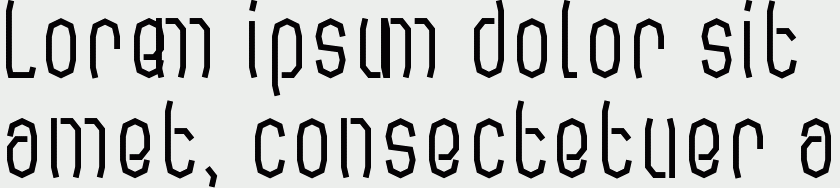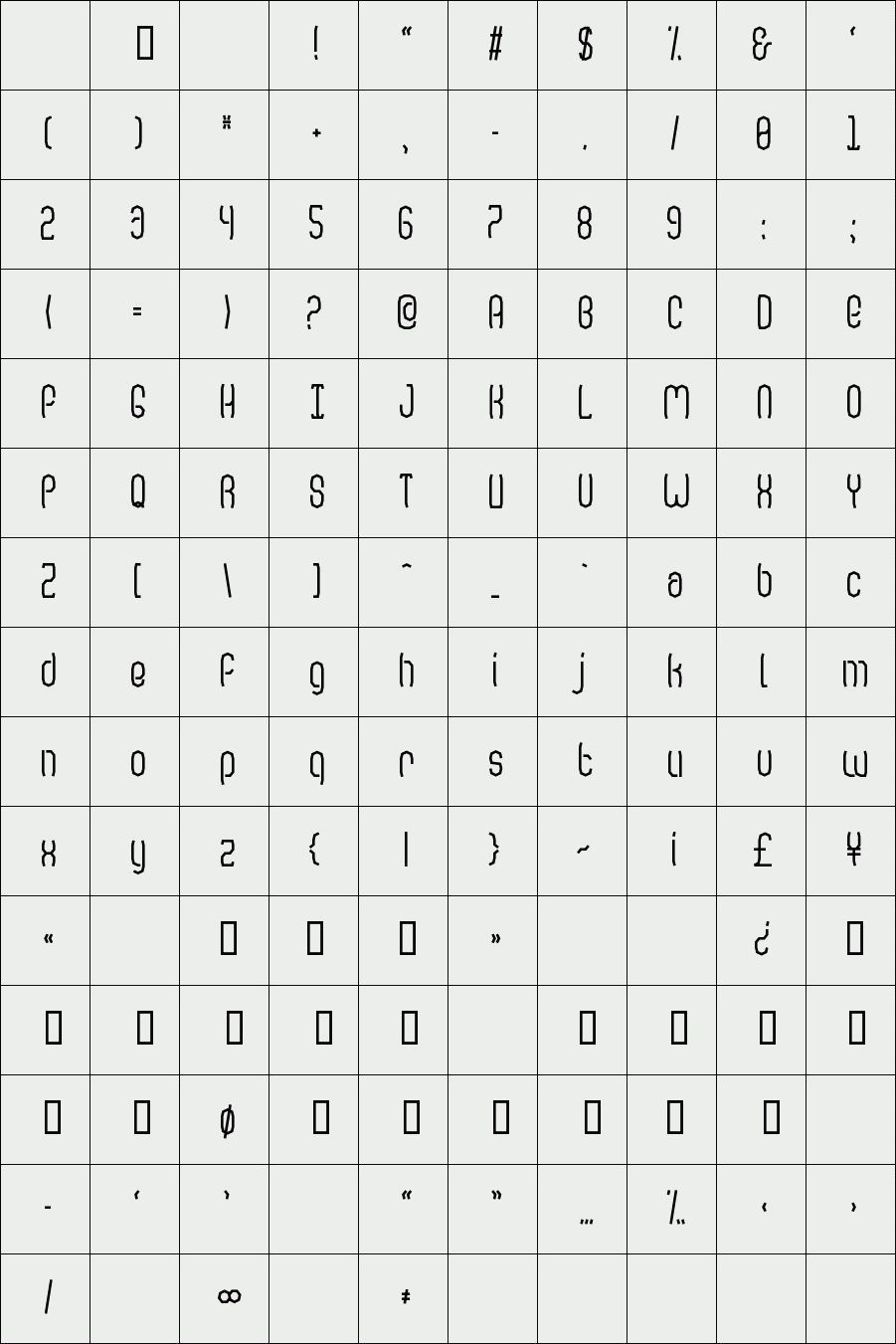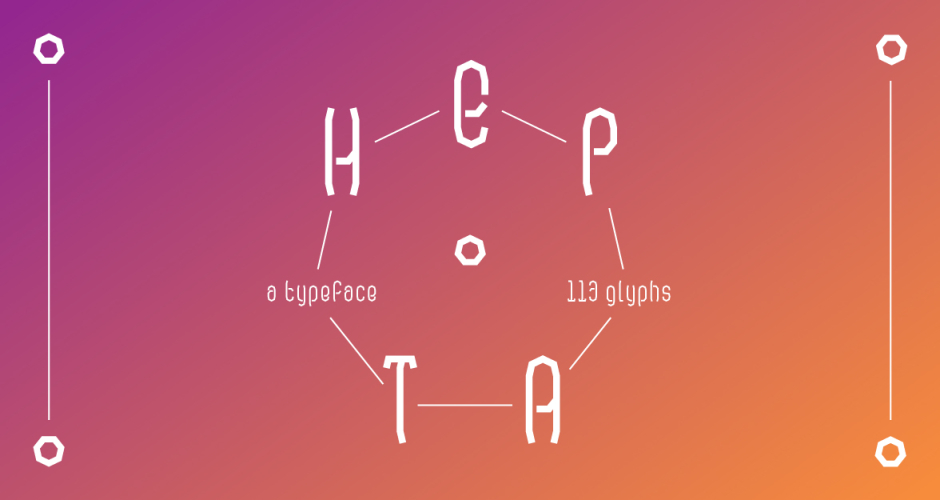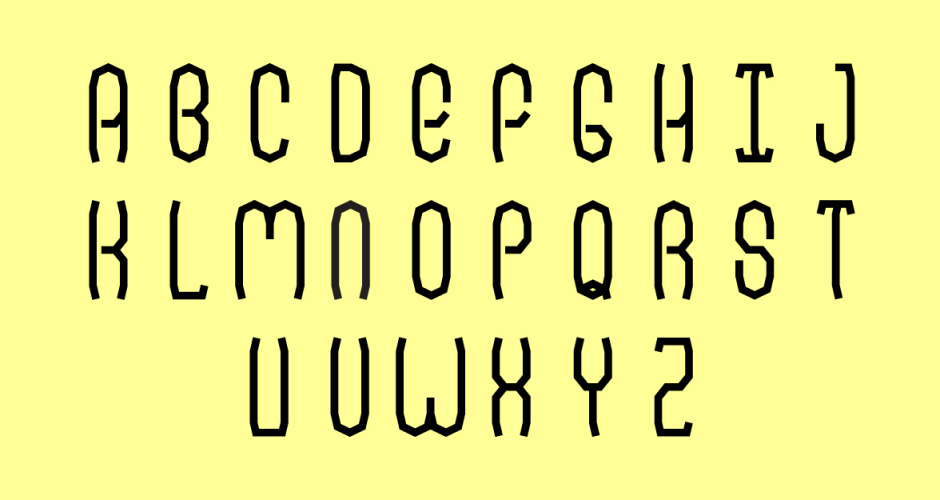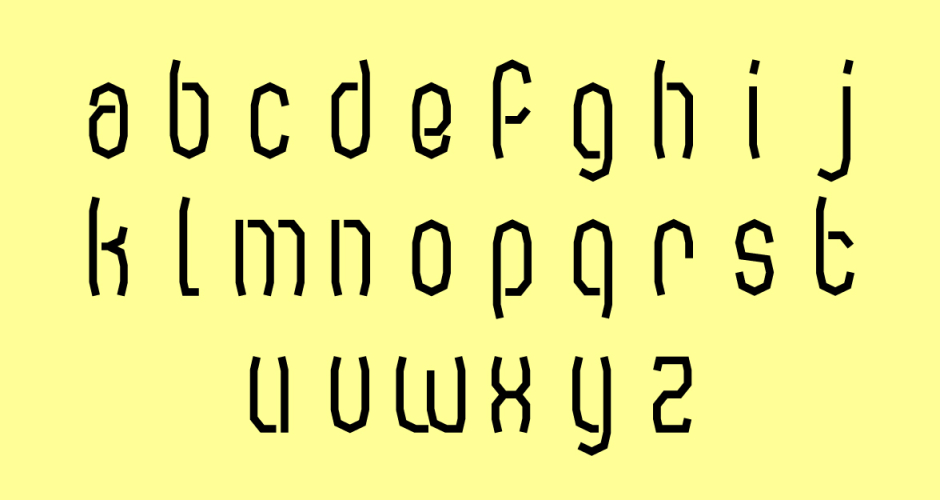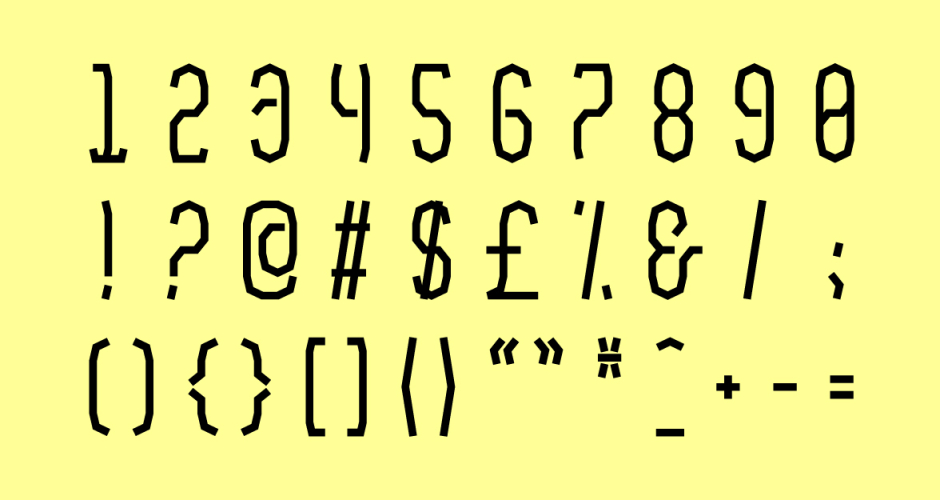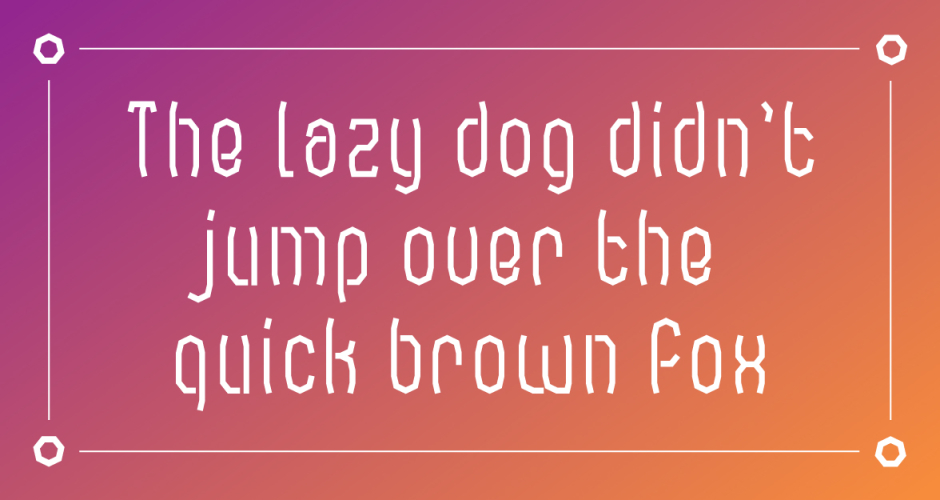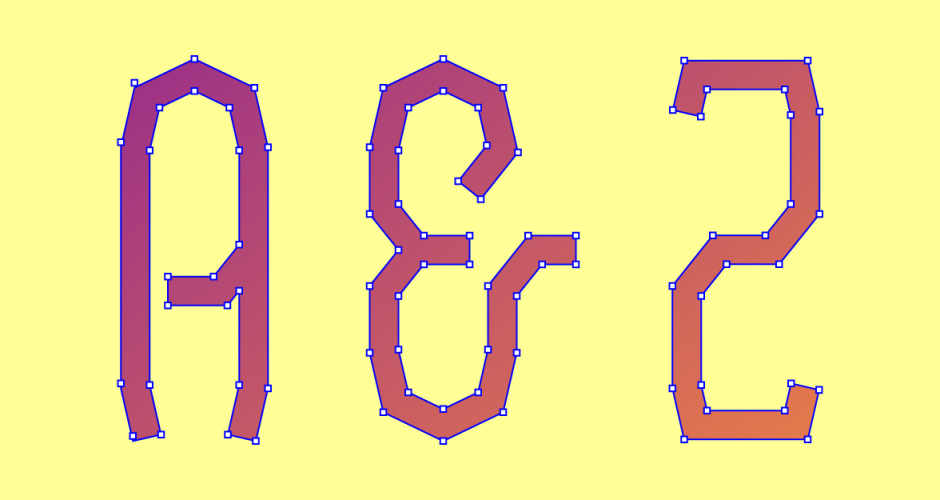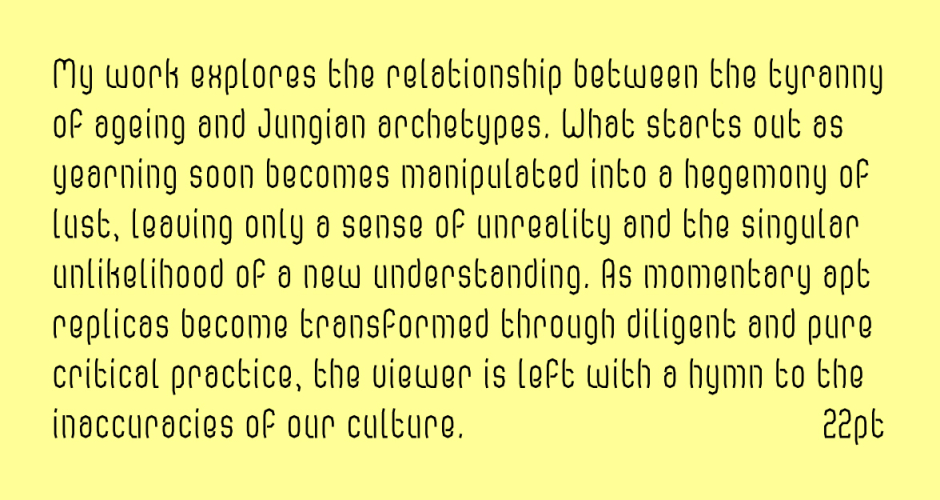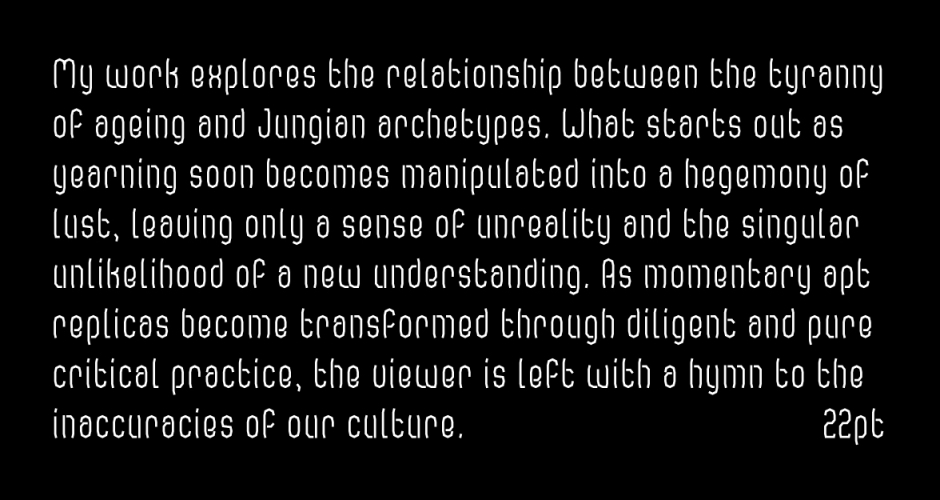
Hepta
Hepta is a typeface designed based on the shapes and angles found in a regular heptagon, a polygon with seven equal sides and angles. It has an extensive amount of 113 glyphs, including upper and lower case letters, numbers, and symbols.